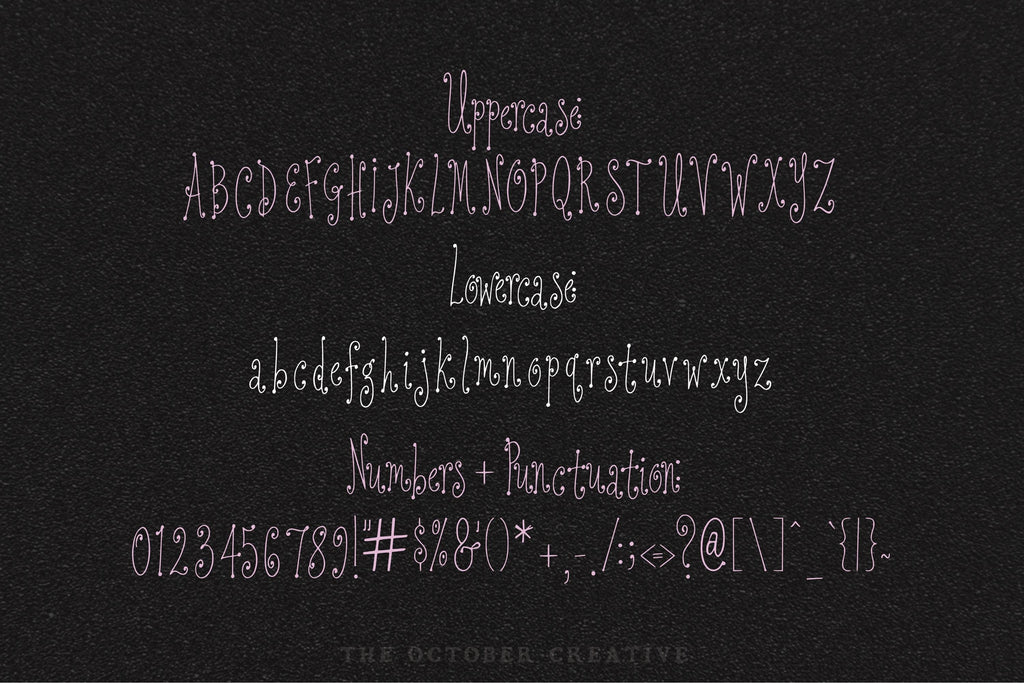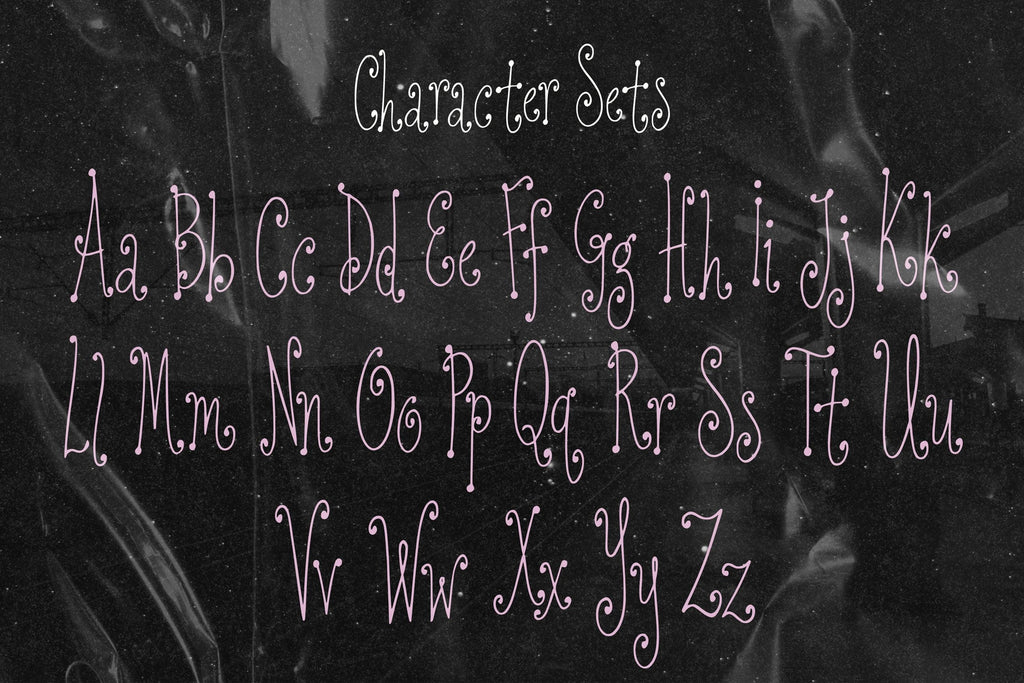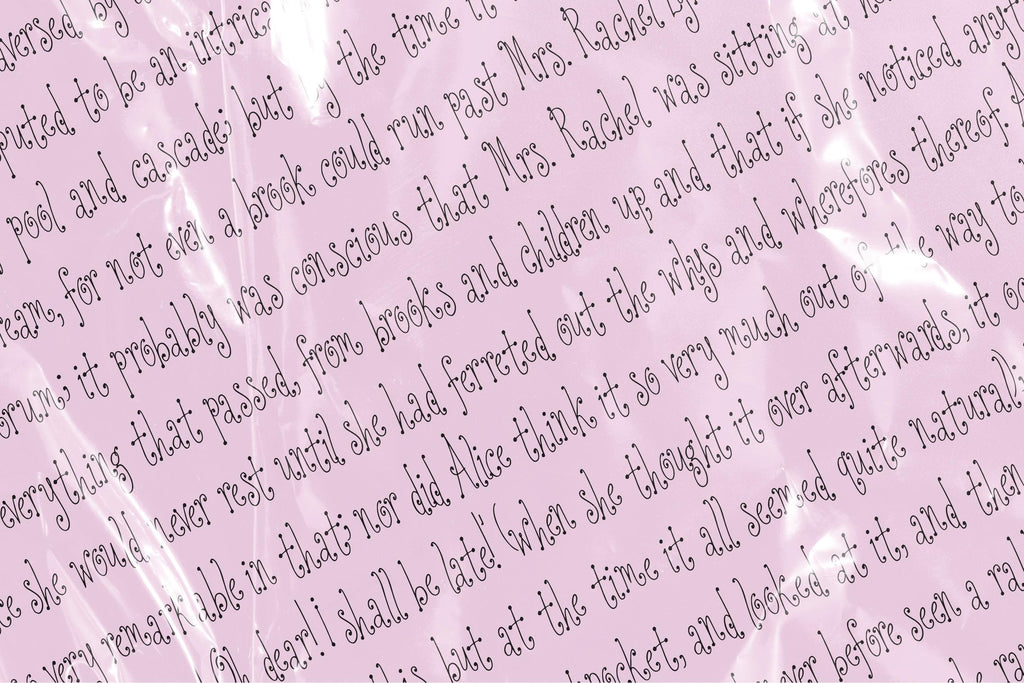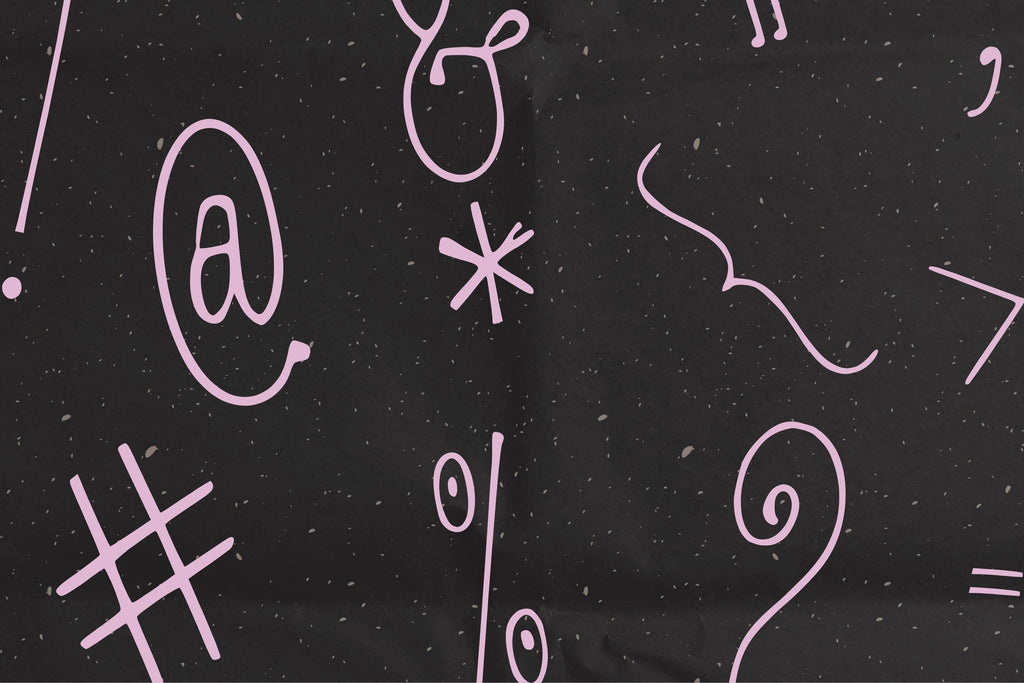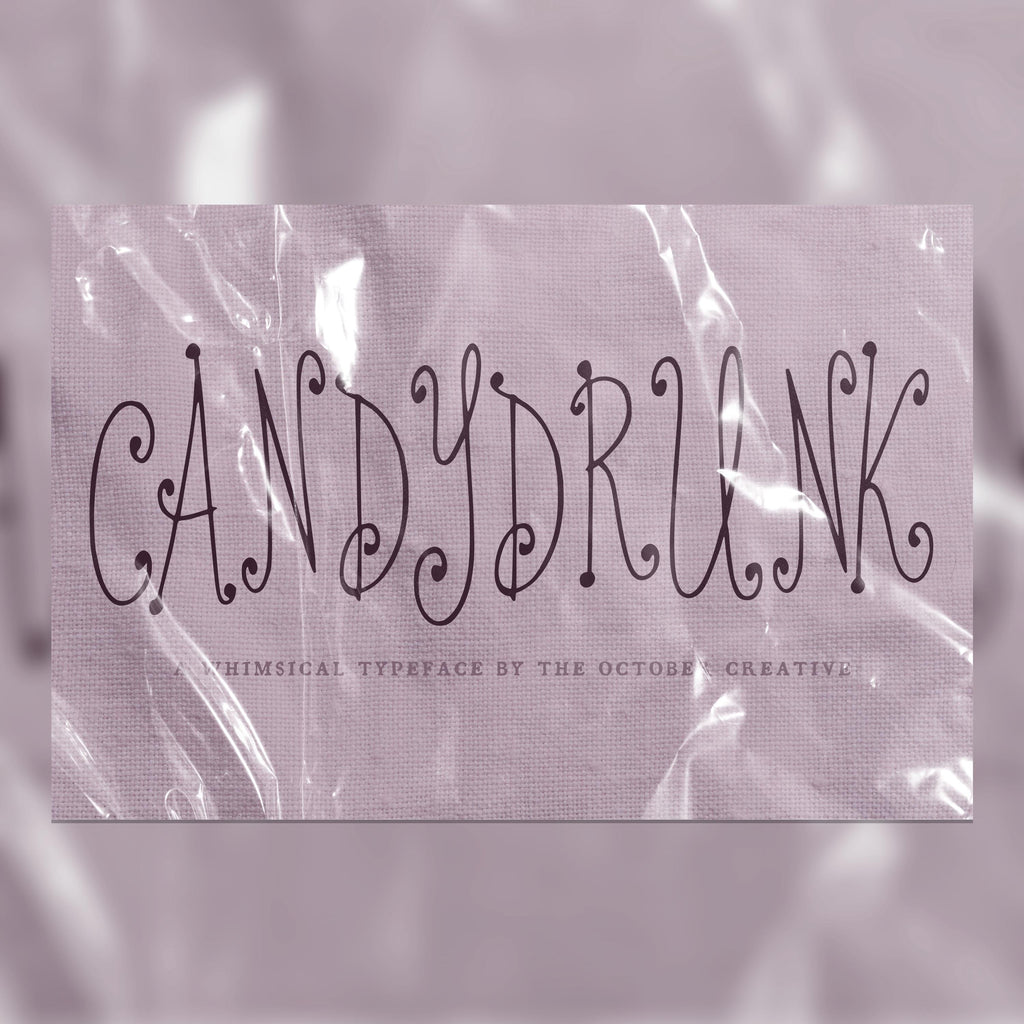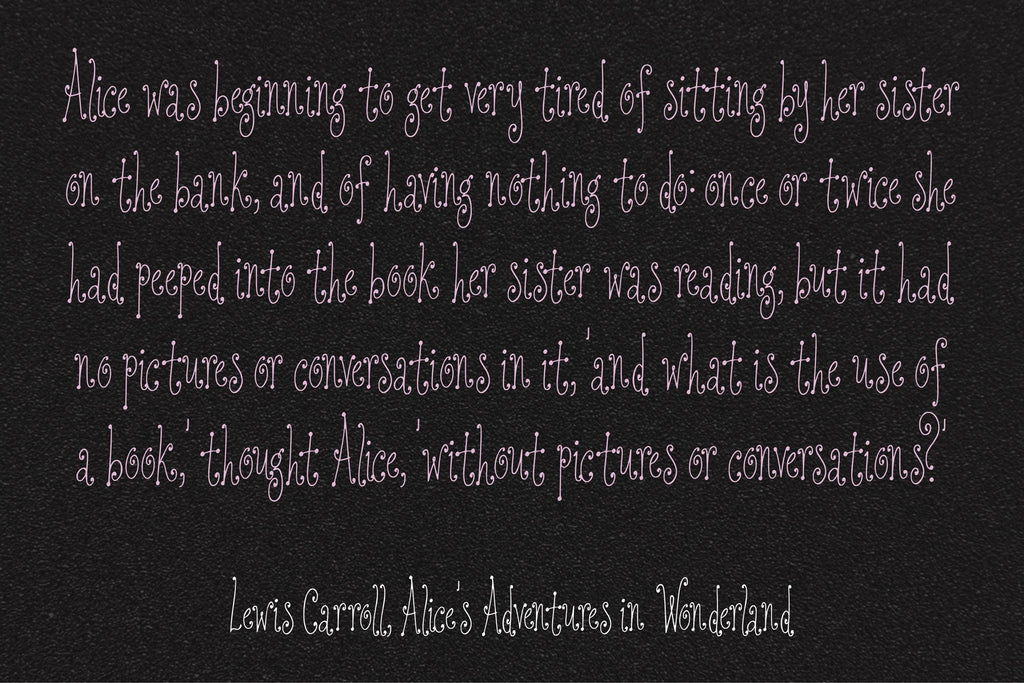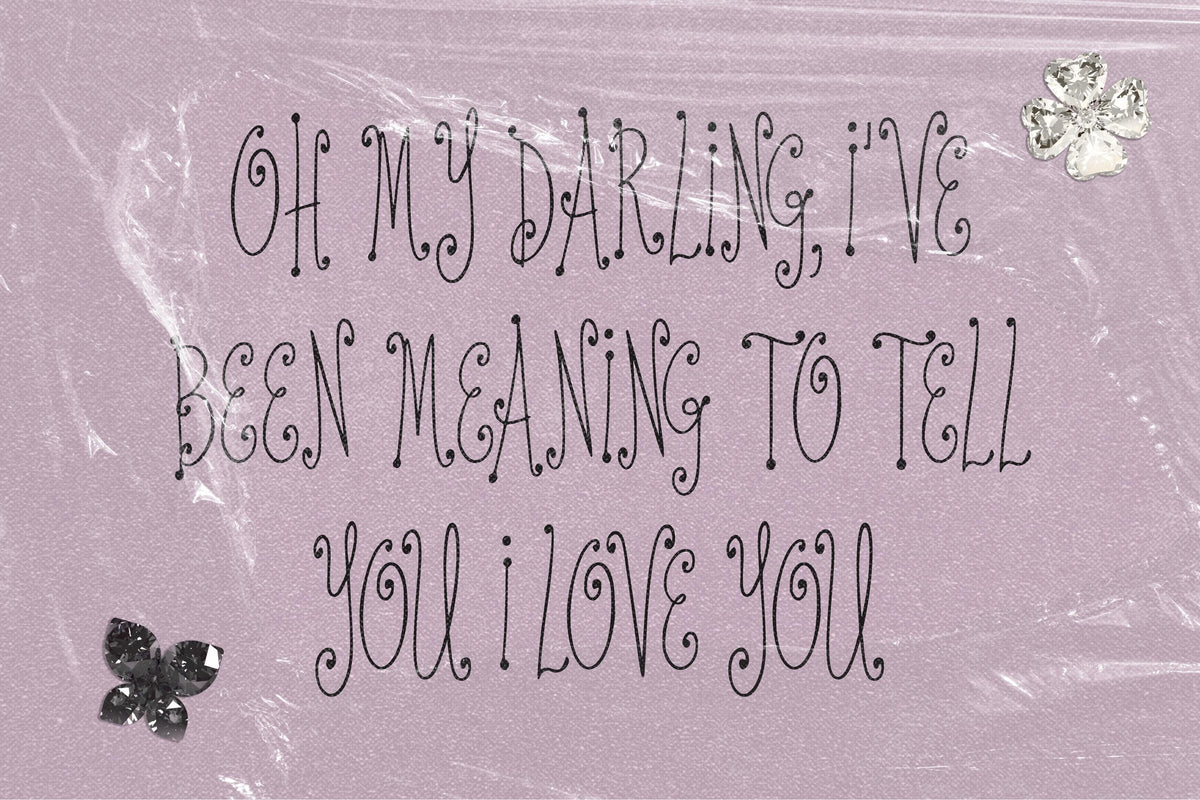
Candydrunk Font
Candydrunk gives every word a handful of tiny spirals and a slightly tipsy tilt. Try its delicate, curly letters on journal stickers, gift labels, and party invitations that could use a little sugar.